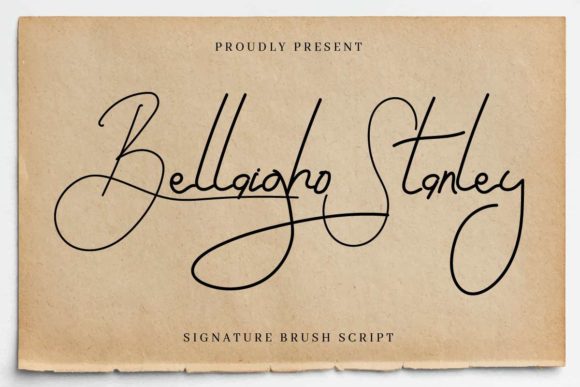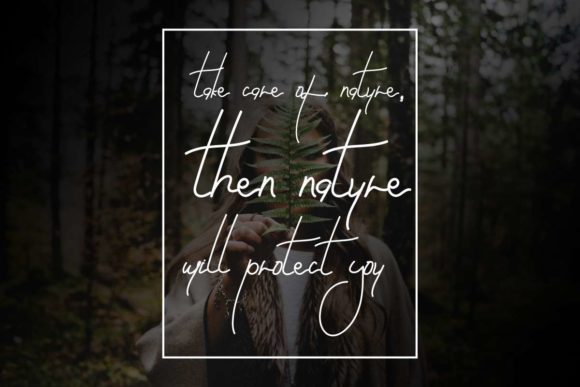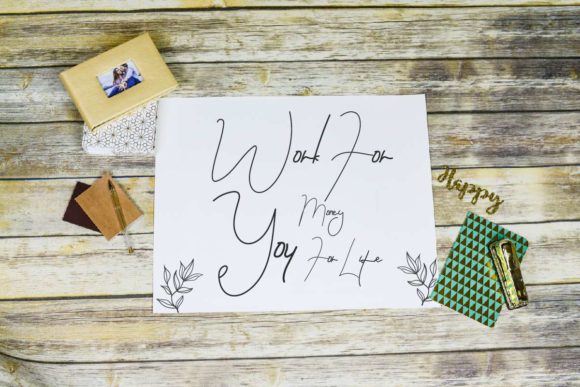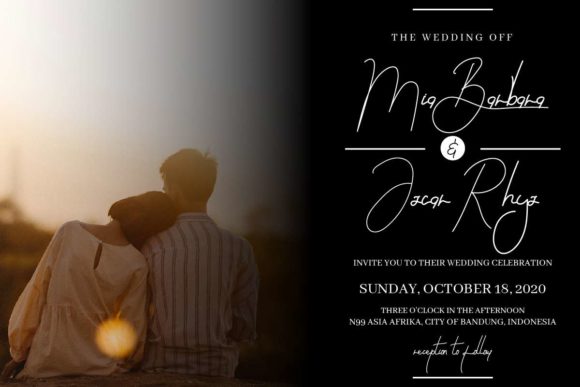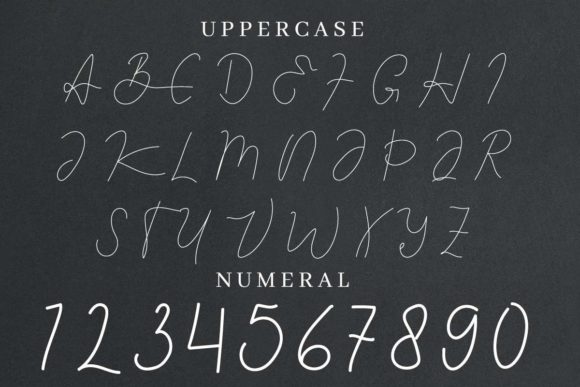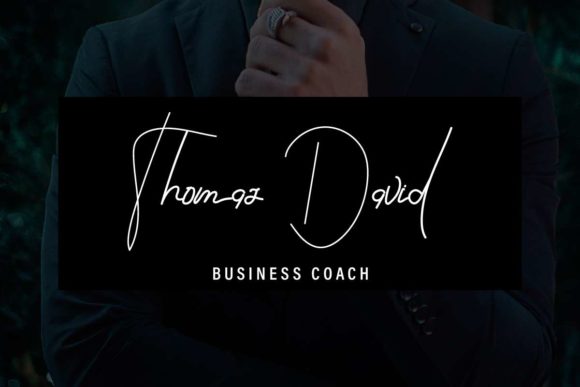
Unleash Your Creativity with the Bellaigho Stanley Font
Have you ever sat at your desk, staring at a blank page, and felt the urge to create something truly special? That’s when the magic happens – when the blank page transforms into a masterpiece, and your imagination runs wild. For designers, this moment is a constant quest, and the right tools can make all the difference. That’s where the Bellaigho Stanley Font comes in – a unique and captivating handwritten font that will elevate your design projects to new heights.
With its beautiful combination of timeless elegance and authentic calligraphy, the Bellaigho Stanley Font is a game-changer for designers. Whether you’re working on a wedding invitation, a branding project, or a social media campaign, this font will add a touch of sophistication and personality to your work. Its versatility and charm make it an essential addition to any designer’s toolkit, and we can’t wait to share its secrets with you.
- Unique Characteristics: Bellaigho Stanley features a unique blend of modern and vintage elements, with intricate details and ornate flourishes, making it suitable for high-end designs and publications.
Bellaigho Stanley Font Review
I must say, I was excited to dive into the Bellaigho Stanley font. Here’s my honest review:
- Unique and creative design: The font has a distinct, hand-drawn feel that sets it apart from more generic fonts.
- Good for headings: Bellaigho Stanley looks great in larger font sizes, making it perfect for headings and titles.
- Supports various languages: The font includes a wide range of languages, making it a great choice for international projects.
- Limited legibility: At smaller font sizes, the font can become difficult to read due to its unique design.
- No bold or italic styles: The font only comes in regular style, which may limit its versatility.
- May not be suitable for body text: The font’s unique design may not be suitable for large blocks of body text.
Bellaigho Stanley is a great choice for designers looking for a unique and creative font. While it may have some limitations, its unique design and good legibility at larger font sizes make it a great option for headings and titles. Just be sure to use it sparingly and in the right context.
Tips for Getting the Most Out of Bellaigho Stanley Font
Use Bellaigho Stanley Font for headings and titles to create a professional and elegant look.
Experiment with different font sizes and colors to create visual hierarchy in your design.
Pair Bellaigho Stanley Font with other fonts to create a unique and stylish combination.
Bellaigho Stanley Font is ideal for use in corporate branding, wedding invitations, and luxury product design.
It is also suitable for use in posters, flyers, and brochures where a touch of elegance is desired.
Alternative Fonts to Bellaigho Stanley Font
The Great Vibes font is a beautiful, elegant script font that works well for invitations, posters, and other creative projects. It has a more refined and sophisticated feel compared to Bellaigho Stanley Font, which is bolder and more playful.
Use Great Vibes when you want to add a touch of sophistication and elegance to your design.
Pacifico is a modern script font that is perfect for branding, logos, and advertisements. It has a more relaxed and casual feel compared to Bellaigho Stanley Font, which is more energetic and playful.
Use Pacifico when you want to create a friendly and approachable brand image.
Carolyna Pro is a elegant and refined script font that works well for high-end branding, luxury products, and fine art. It has a more classic and sophisticated feel compared to Bellaigho Stanley Font, which is more modern and trendy.
Q: What is the recommended font size and line spacing for optimal readability with Bellaigho Stanley?
For optimal readability, we recommend using a font size between 12-14 points, with a line spacing of at least 1.2-1.5 times the font size. This will ensure that the text is clear and easy to read, while also maintaining the aesthetic appeal of the Bellaigho Stanley font family.